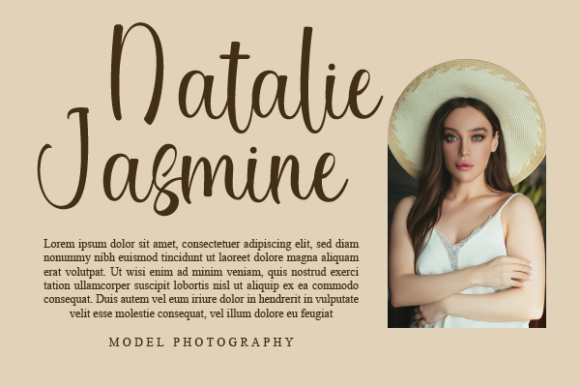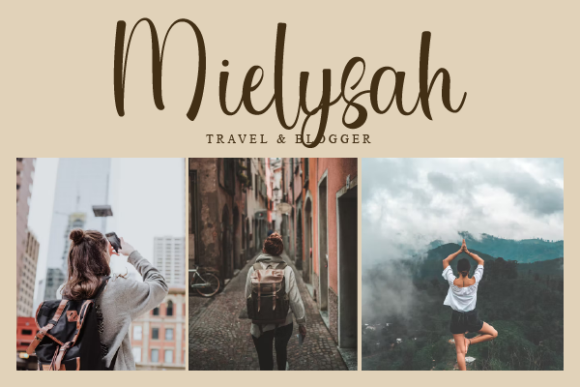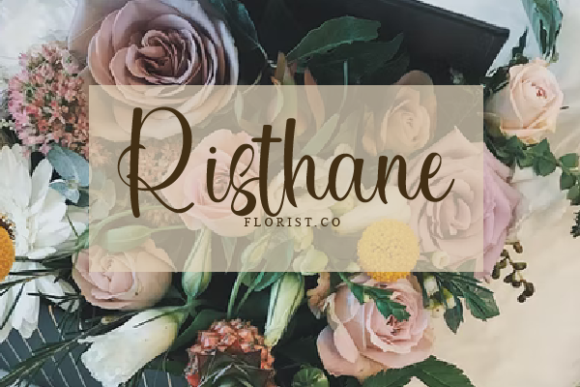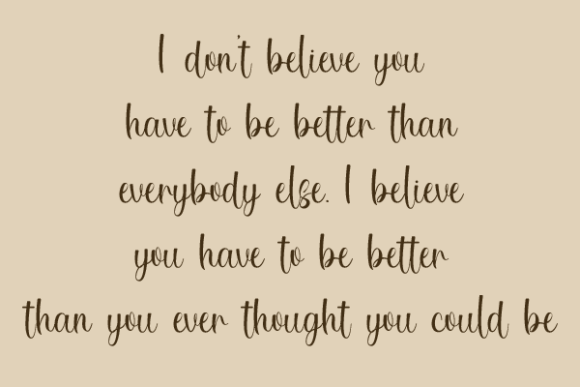
Introduction to Amelia Lambert Font
As a designer, have you ever been working on a project and suddenly, an idea hits you like a ray of sunshine? That’s exactly what happened to me when I stumbled upon the Amelia Lambert Font. Its elegant and curvy lines are like a breath of fresh air, making your work stand out in a crowd. With its versatility and sophistication, this font is perfect for a wide range of creative projects, from product packaging to magazine covers, and even social media graphics.
What makes the Amelia Lambert Font truly special is its ability to add a touch of high-quality elegance to any design. Whether you’re working on a branding project or just need a font to express words above a transparent background, this font is sure to impress. And the best part? It’s a free download, making it an invaluable design resource for any creative project.
Key Features of Amelia Lambert Font
- High-quality, free downloadable font ideal for creative projects and design resources.
- Includes a range of glyphs and characters, making it suitable for a variety of design applications.
- Designed with a unique aesthetic, offering a distinctive touch to creative projects and design resources.
Honest Review: Amelia Lambert Font
I recently stumbled upon the Amelia Lambert Font and I must say it’s a hidden gem for designers. As a creative project, this font is a great addition to any design resource.
What works well about the Amelia Lambert Font is its high quality design, making it perfect for any project that requires a touch of elegance. The transparent background allows for seamless integration with any image or design element, giving it a clean and sophisticated look.
- ✨ Beautiful, elegant design perfect for creative projects
- ✨ High quality font suitable for various design applications
- ✨ Free download available, making it a valuable design resource
However, there are some limitations to consider. The Amelia Lambert Font may not be suitable for projects that require bold or dramatic typography, as it tends to lean towards a more subtle and refined look.
Overall, I’m impressed with the Amelia Lambert Font and would recommend it to designers looking for a high-quality, elegant font to add to their design resource library.
⚠️ Limited use for bold or dramatic typography
The Amelia Lambert Font is ideal for use in creative projects, such as logo designs, social media graphics, and marketing materials. It is also a great resource for designers who want to create high-quality designs with a transparent background.